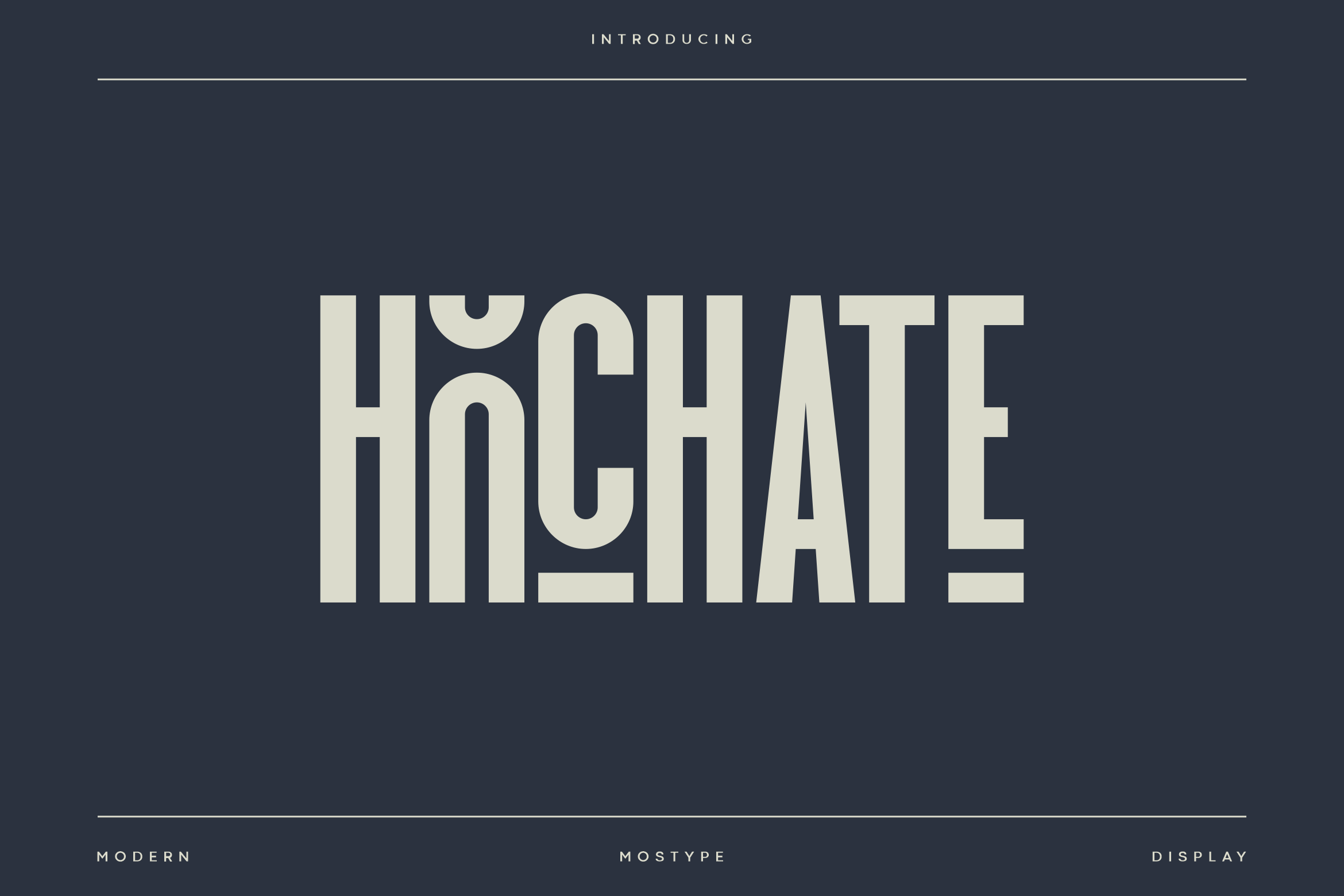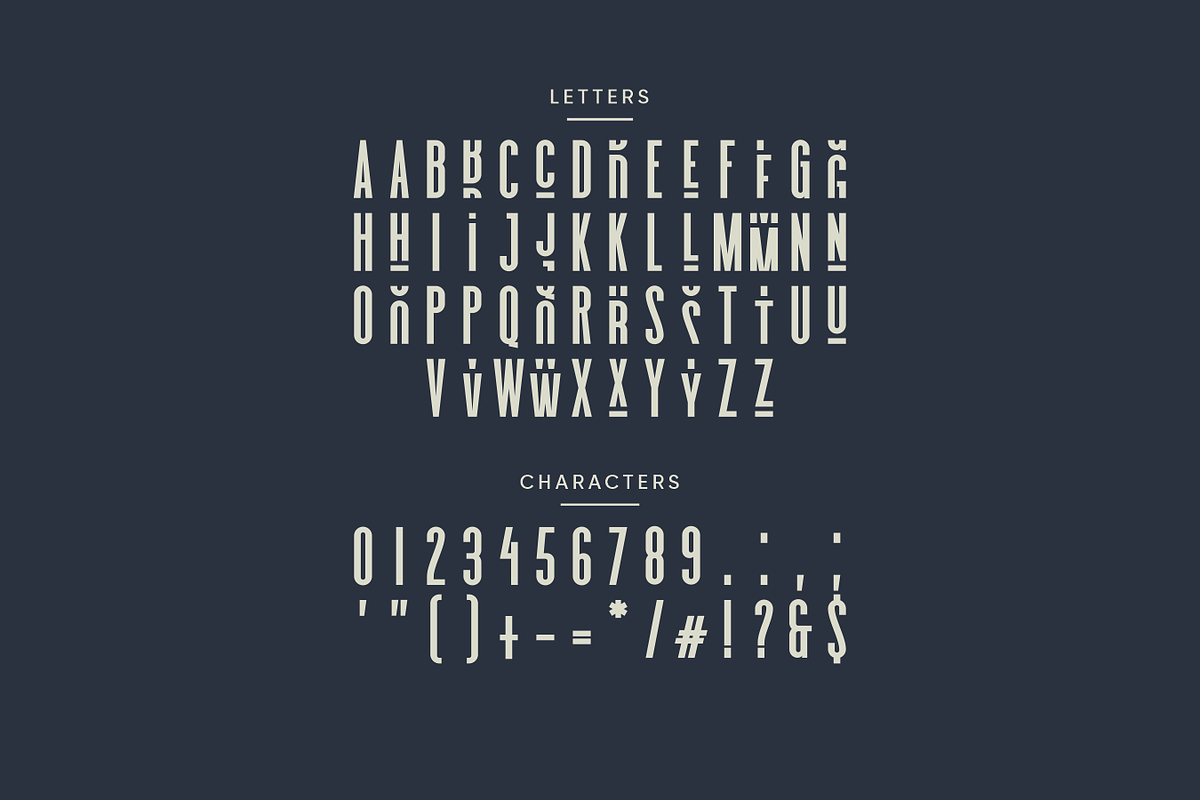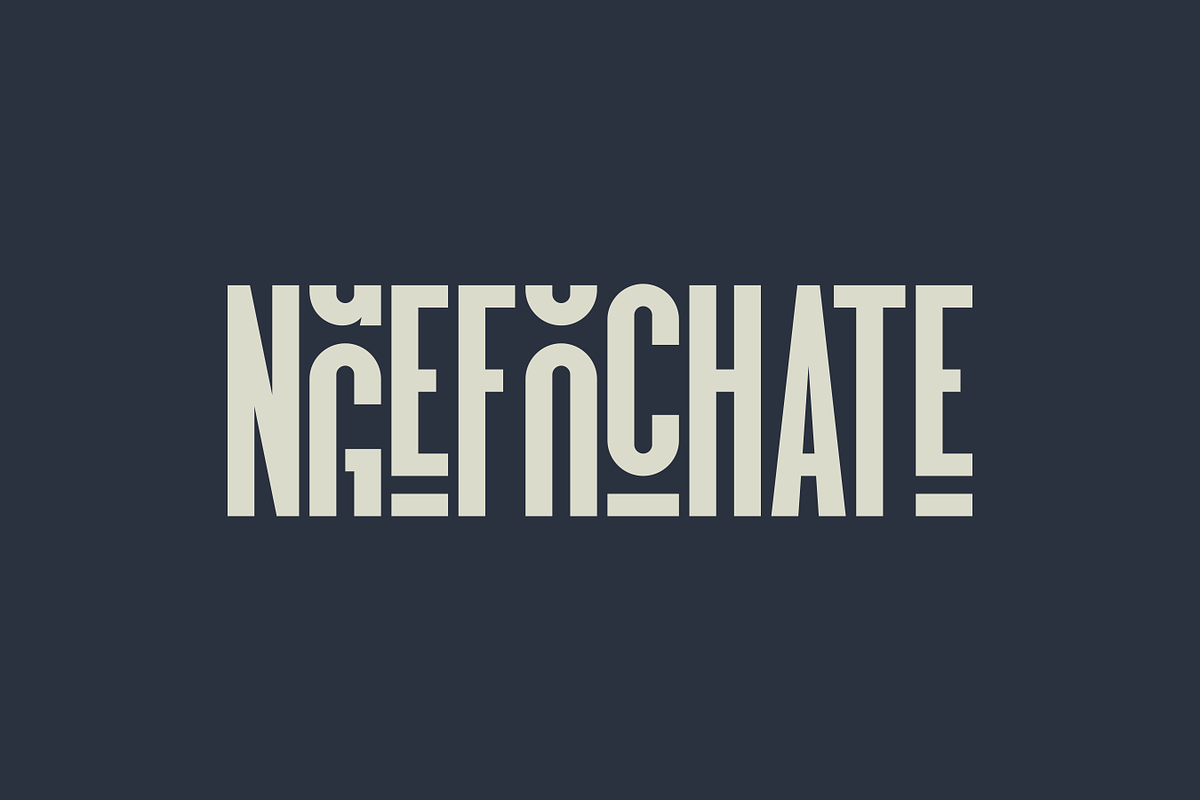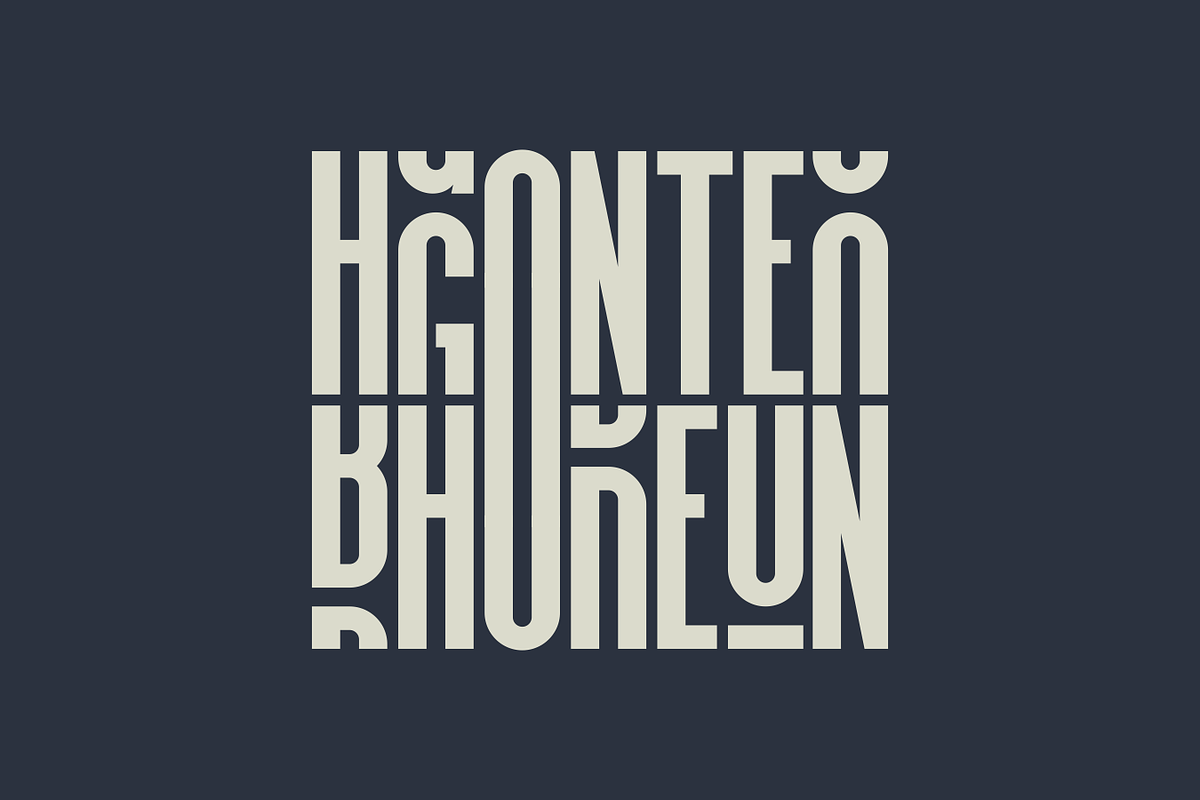
Hochate - Modern Luxury Typeface
Hochate is a contemporary font with an elegant and luxurious look, the clipped style makes it highly dynamic for logos and branding. This font is a clean, minimalist, modern font, designed specifically for logos, branding, headers, and headlines. Hochate is impactful and timeless for logos and branding materials. Wavers Font ensures your designs make a lasting impression.